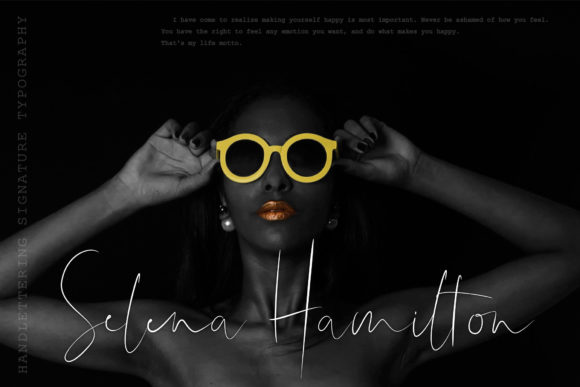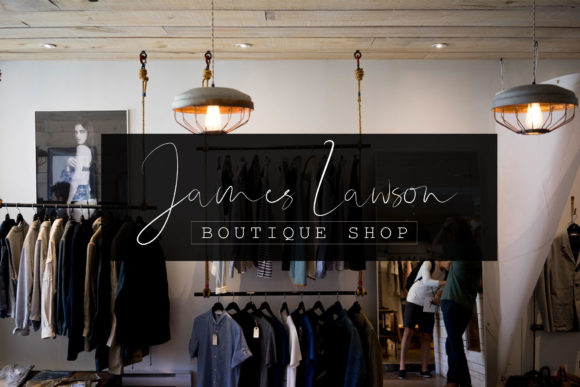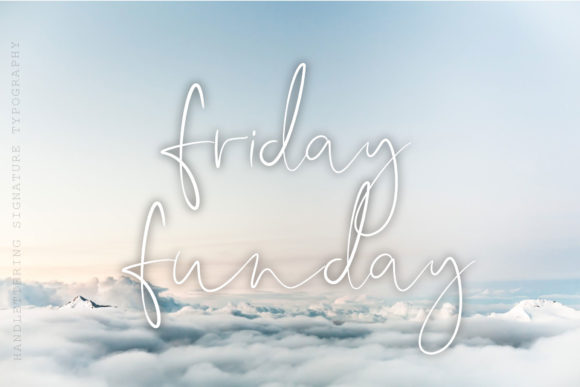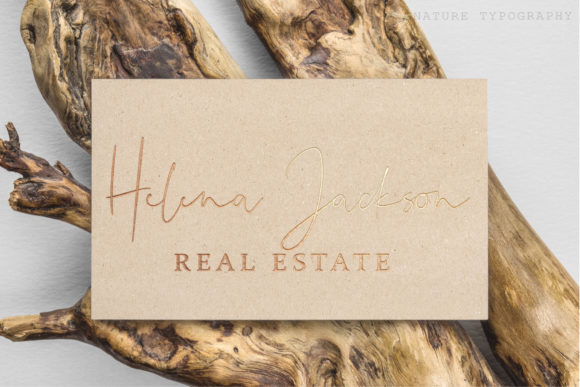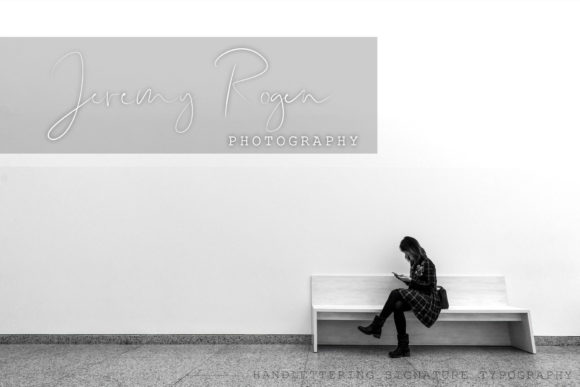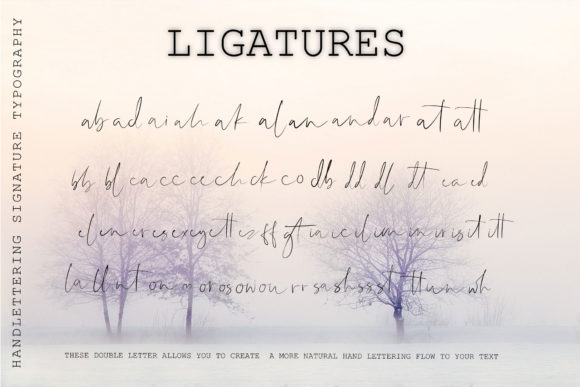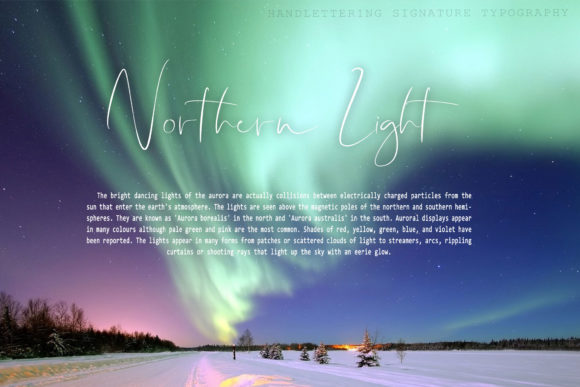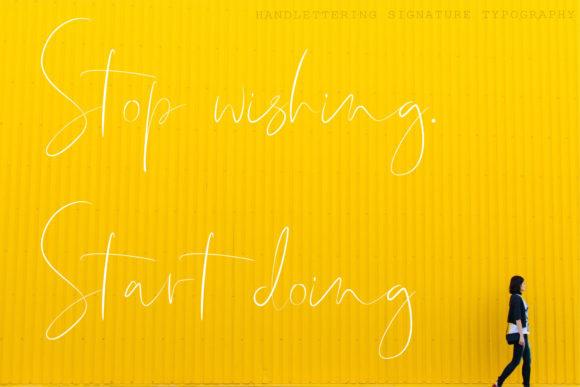
HomeScript FontsShallou Script Font Script Fonts Shallou Script Font FacebookXPinterestWhatsApp Shallou Script Font Poster 2 Shallou Script Font Poster 3 Shallou Script Font Poster 4 Shallou Script Font Poster 5 Shallou Script Font Poster 6 Shallou Script Font Poster 7 Shallou Script Font Poster 8 Shallou Script Font Poster 9 Shallou Script Font Poster 10 About Shallou Script Font The Shallou is an elegant script font which will ad a feminine touch to your designs. DOWNLOAD ON CREATIVE FABRICAThis font is sold and delivered by Creative Fabrica. Font Canyon may earn a commission if you buy through this link. People also explored cadina script calligraphy Happy Wedding Font Neon Himala Font Frapple Font Ghadys Font Cristabella Font Aishiteru Font Responsible Font Helsing 273 0 TagsShallou Script Font Previous articlePeppermint Chic FontNext articleSingle Parent Duo Font LEAVE A REPLY Cancel reply Comment: Please enter your comment! Name:* Please enter your name here Email:* You have entered an incorrect email address! Please enter your email address here Website: Save my name, email, and website in this browser for the next time I comment. Personal Use Free Batik Classic Personal Use Free Read more about this font Pridaem Cooper Personal Use Free Read more about this font Meloche Book Personal Use Free Read more about this font Williana Personal Use Free Read more about this font BLOG Top 7 Google Fonts Alternatives for Faster and Privacy-Friendly Web Design (2025) Top 7 Google Fonts Alternatives for Faster and Privacy-Friendly Web Design (2025) When it comes to web typography, Google Fonts has long been the go-to... Where to Buy American Fonts Online in 2024 Elegant Wedding Invitation Fonts – Handwritten & Script Fonts Transform Your Website: Elevate Your Typography with 7 Best Web Font Generators